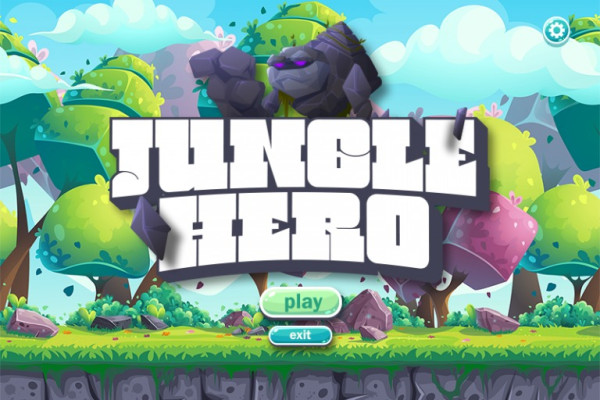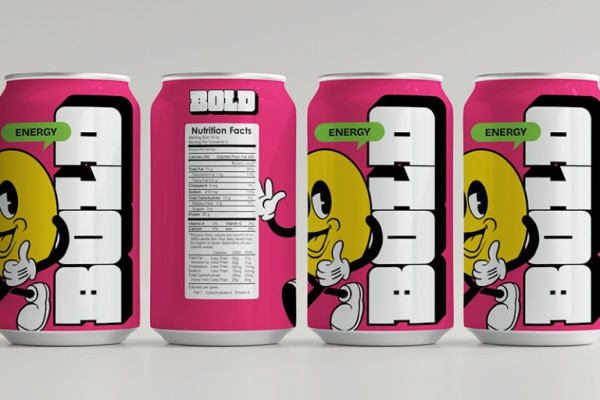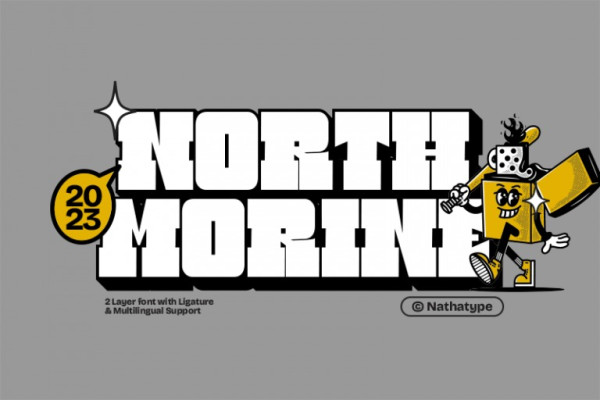
North Morine Font
North Morine Font is a powerful display font that offers both regular and shadow extrude styles, designed with a very thick weight and very low contrast. With its commanding presence and distinct design, this typeface adds a bold and striking touch to your creative projects.
The very thick weight of this font demands attention and exudes strength. Each letter is solid and substantial, making a powerful statement in any composition. The thick strokes create a bold and impactful visual experience, ensuring your message stands out with confidence. With very low contrast, it emphasizes uniformity and consistency. The subtle differences in stroke width across the letters maintain a balanced and harmonious aesthetic. This design choice influences the legibility and readability, so it will be better if you use it in bigger text.
North Morine offers both regular and shadow extrude styles, providing versatility and visual interest to your designs. The regular style showcases the font’s bold weight and low contrast, making it perfect for grabbing attention. The shadow extrude style adds depth and dimension, creating a three-dimensional effect that adds a touch of drama to your designs. Enjoy the available features here.